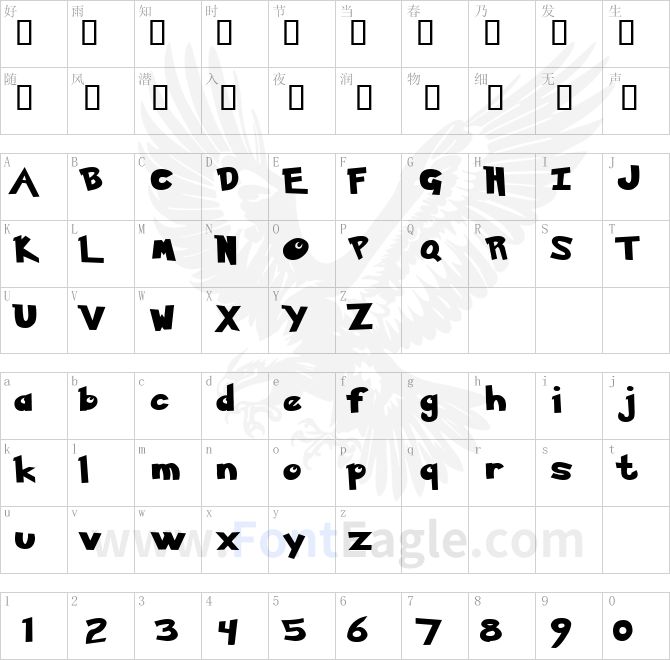
- Font name:Pokemon
- Font Subfamily ID:FontMonger:Pokemon Solid Normal
- Font Full Name:Pokemon Normal
- Postscript:PokemonNormal
- Font Copyright:(C)2000 Neale Davidson